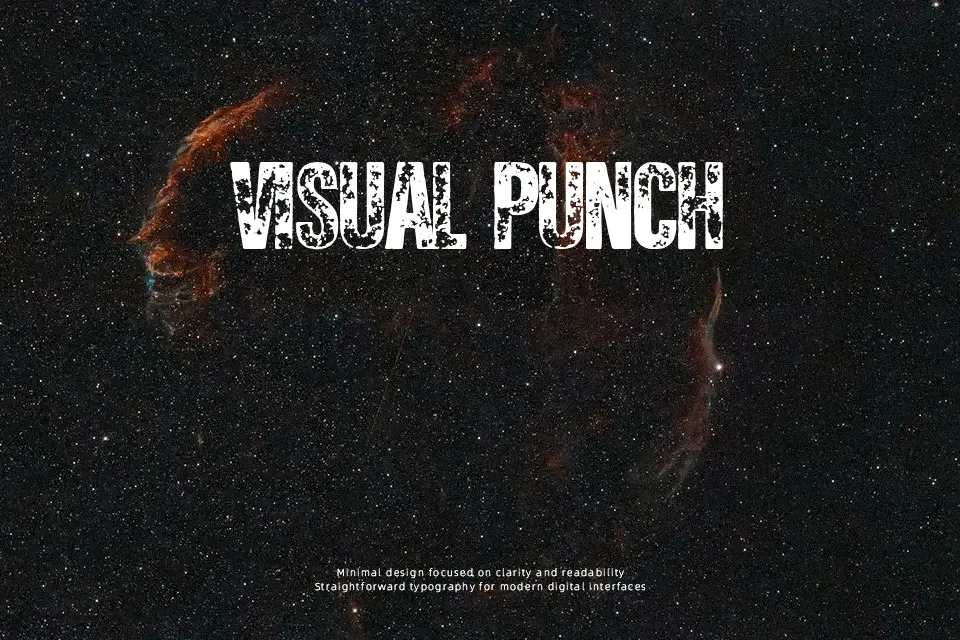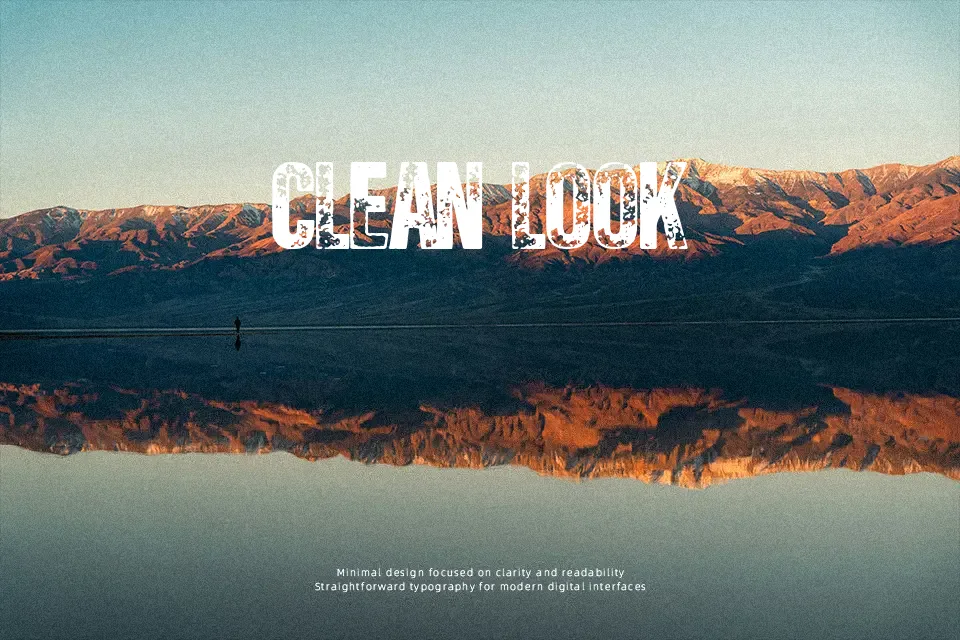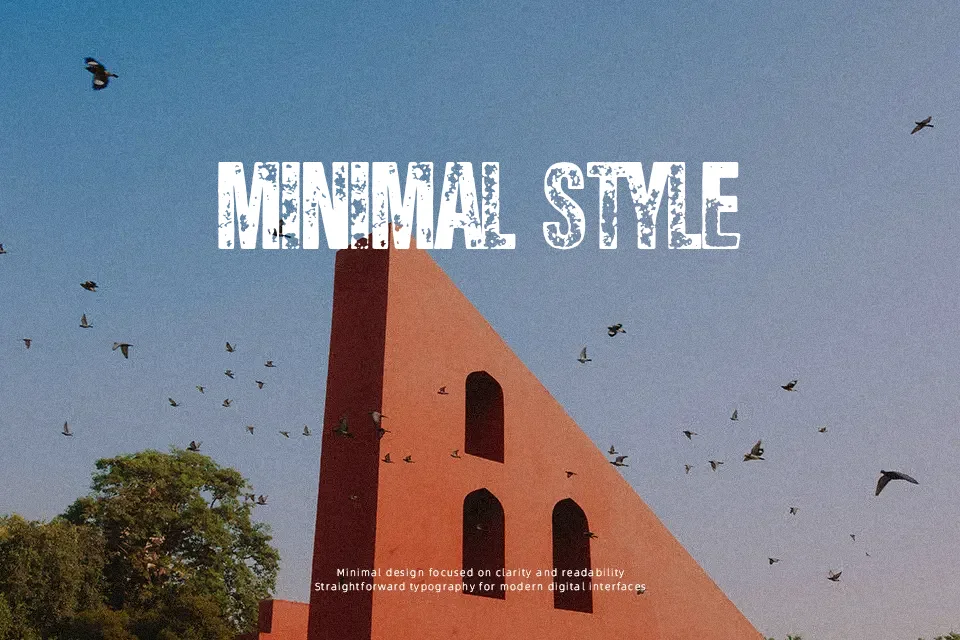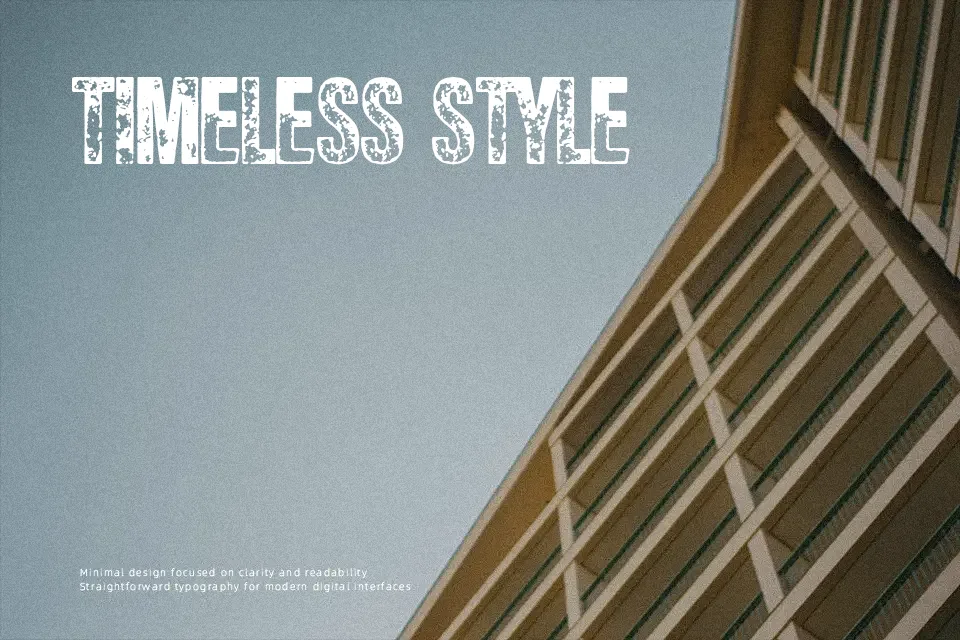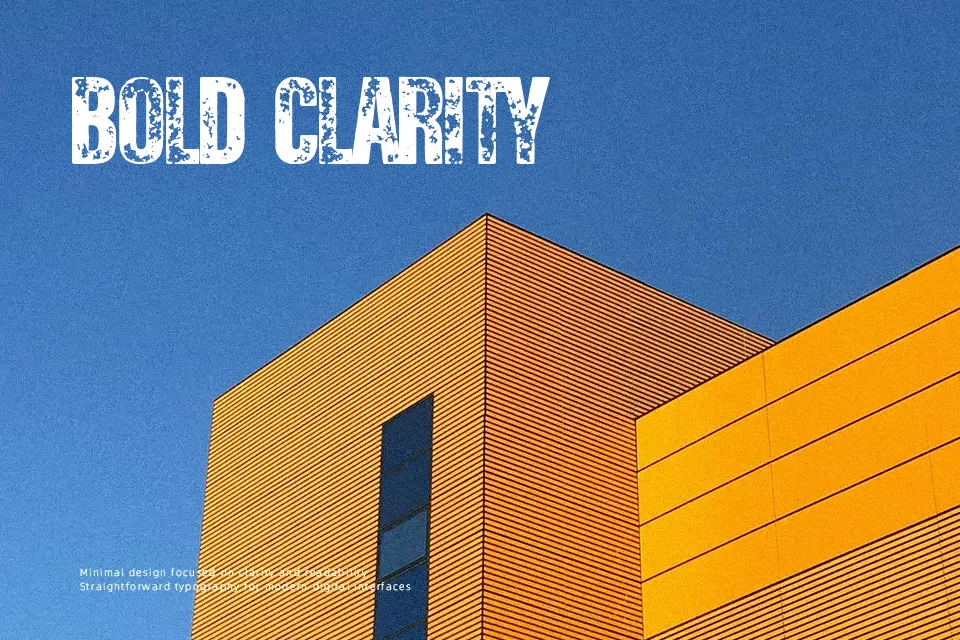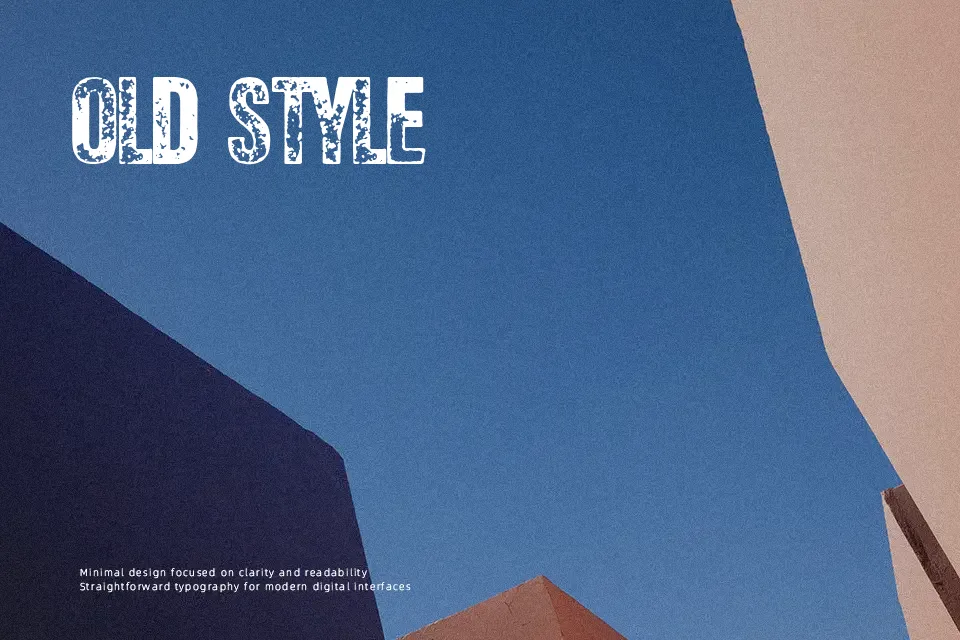
Rough City Font
Rough City Font immediately commands attention with its heavy, distressed strokes and intentionally fragmented structure. The letterforms feature an eroded, grunge-like texture that creates a weathered and rugged visual rhythm across the baseline. Character spacing is relatively tight, emphasizing the solid, impactful proportions of each glyph. This aggressive styling makes the typeface highly effective for demanding display scenarios, particularly in streetwear apparel graphics, extreme sports branding, and rebellious music festival posters. The distressed details provide excellent raw energy at larger scales. However, these same decorative elements become less effective at smaller sizes, significantly reducing continuous reading comfort. It is much less suitable for long paragraphs or interface typography where clear legibility is essential.
extreme sports branding, streetwear apparel graphics, grunge music posters, urban cafe signage
long paragraph text, corporate reports, small interface labels, dense editorial layouts
Perfect for branding, headline, and music, with a bold and decorative style.